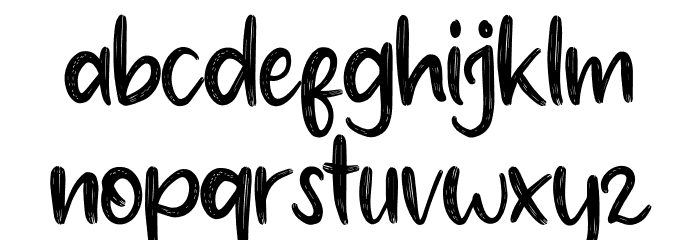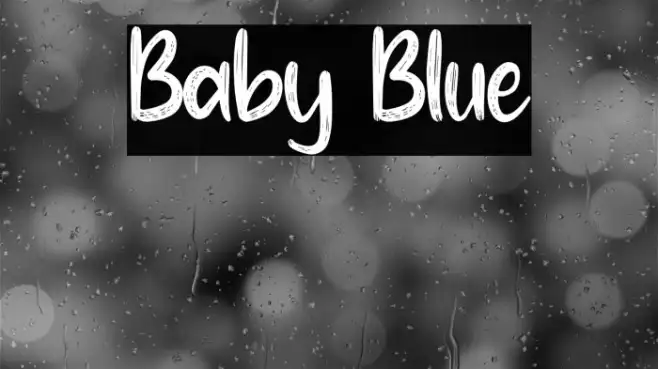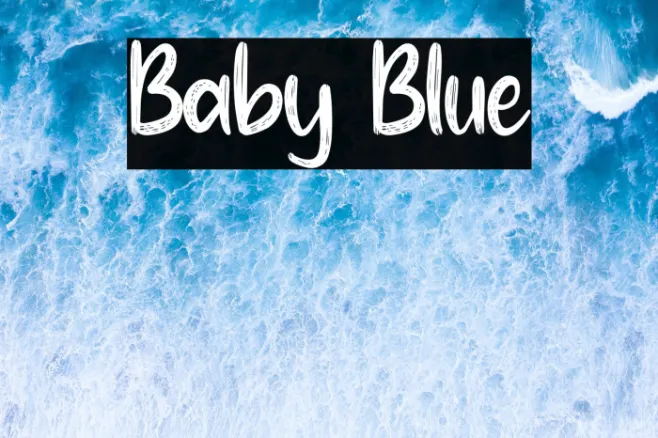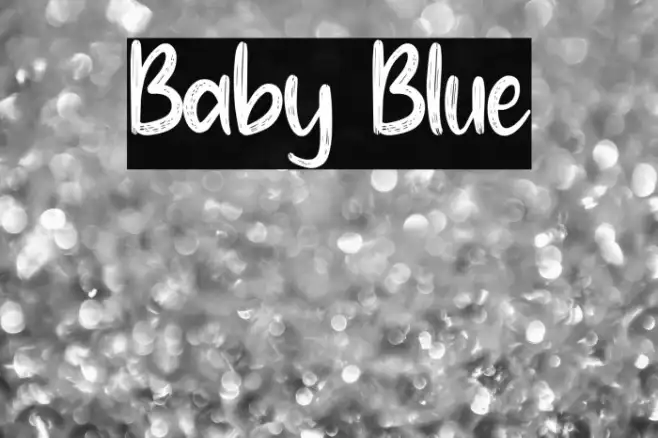
Baby Blue Font
This playful and energetic font features a hand-drawn style with a brush-like texture, giving it a lively and informal appearance. The characters are bold and slightly irregular, adding a sense of movement and spontaneity. The uppercase and lowercase letters maintain a consistent style, with rounded edges and a friendly demeanor. The numbers and special characters follow the same playful aesthetic, making the font versatile for various creative projects. Its unique style is perfect for designs that require a personal touch, such as children's books, playful branding, or casual invitations.
A playful, hand-drawn font with a brush-like texture and lively appearance.
- Font: Baby Blue
- Proposed Projects: Ideal for children's books, playful branding, casual invitations, and creative posters.